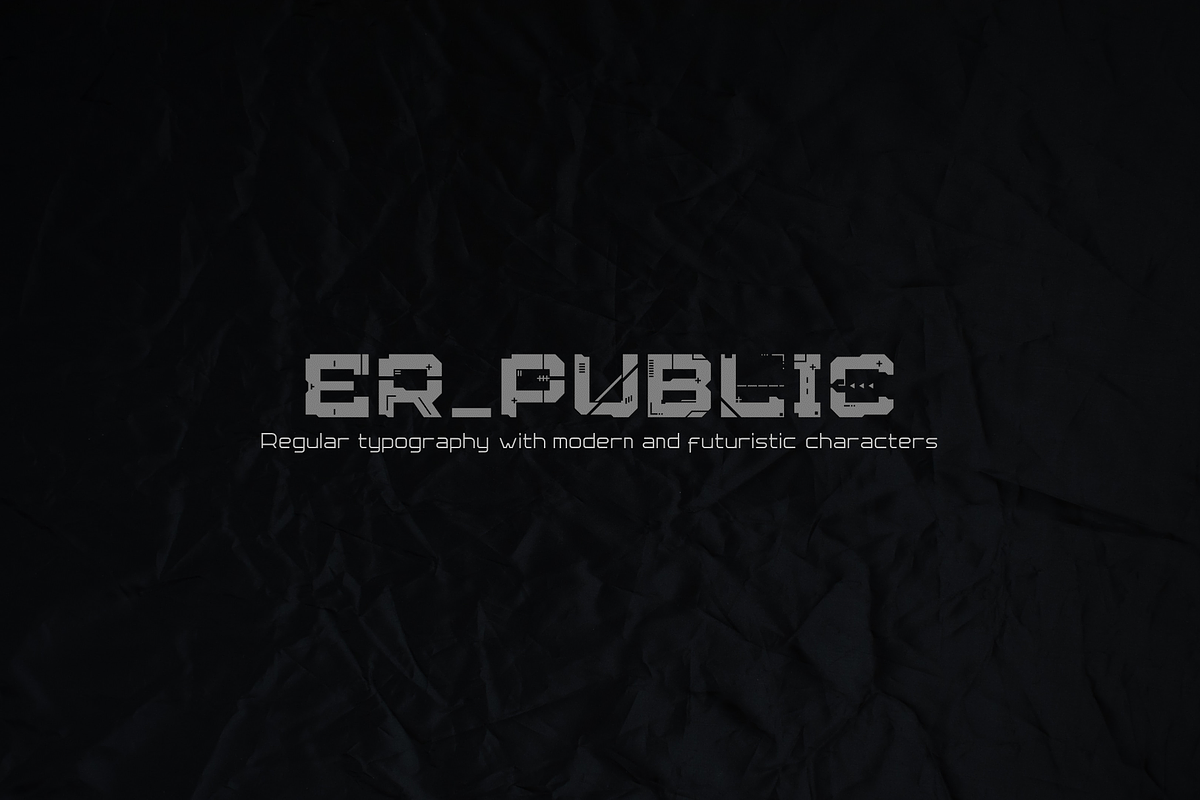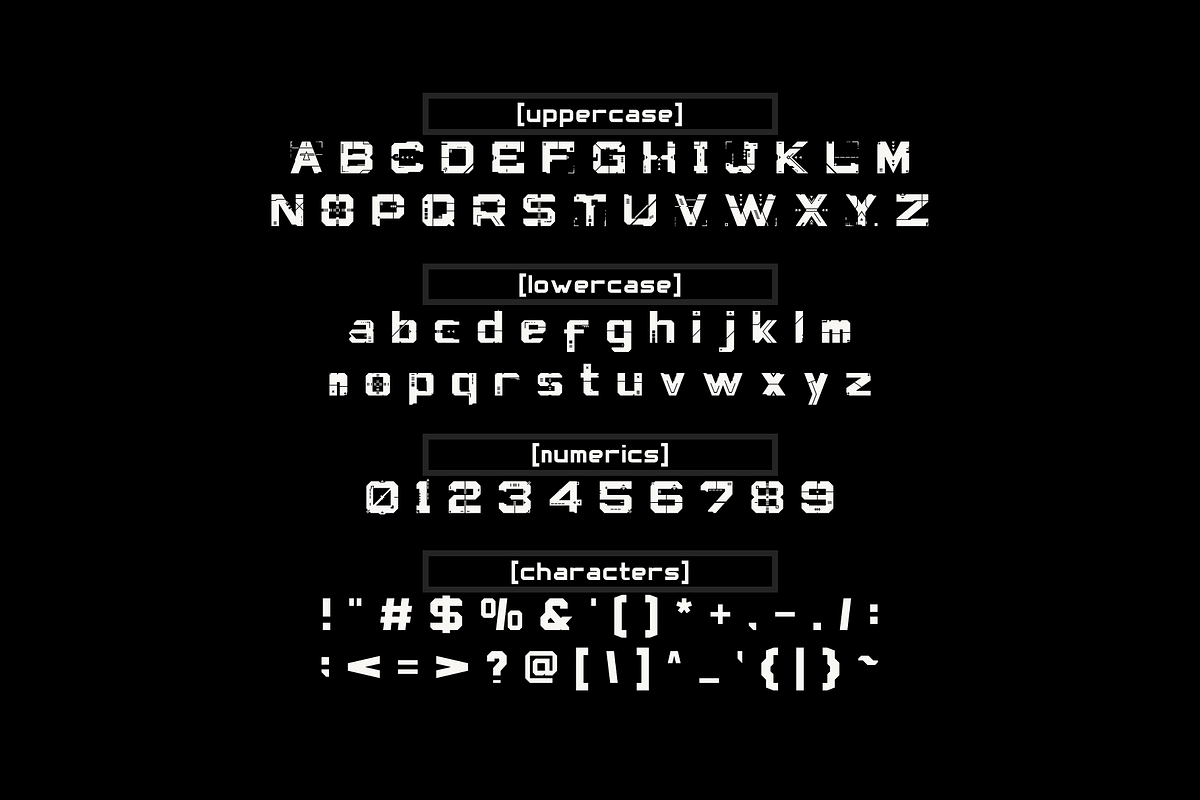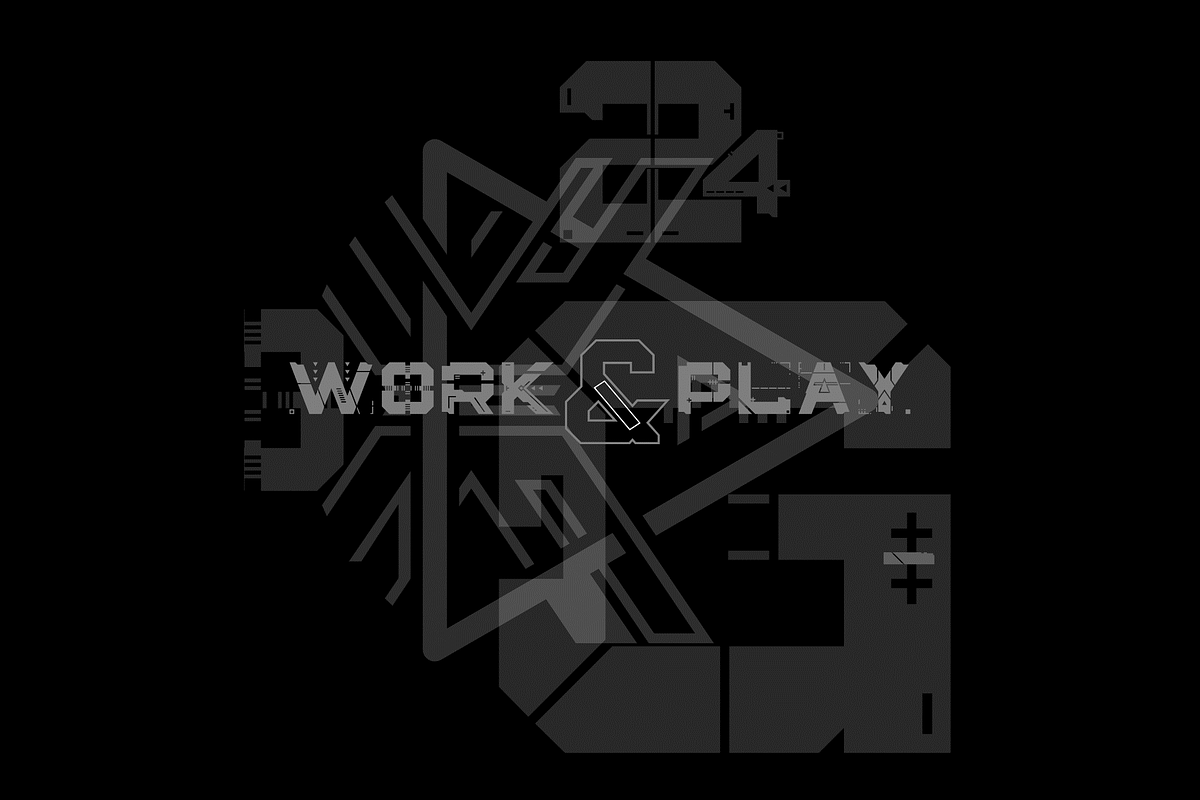
er_public font
Er_public font is a style of font that conveys a sense of modernity, technology, and futurism. These fonts are often characterized by sleek, geometric shapes, sharp angles, and a design that evokes a sense of advanced technology or a futuristic aesthetic. They are commonly used in various design contexts where a cutting-edge, high-tech appearance is desired.
Key features of er_public fonts may include: Geometric Shapes, Sleek Design, Minimalism, High Contrast, and Digital or Sci-Fi Elements.